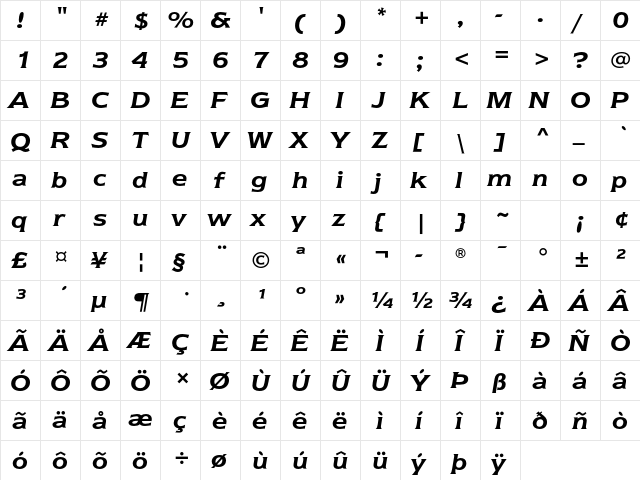
Newtext ITC Std Demi Italic
Demi Italic ·  Ray Baker ·
Design Context for Newtext ITC Std Typeface
Newtext ITC Std takes a measured approach to typography — its balanced proportions and neutral character make it a reliable workhorse for both digital and print work. The dynamic lean of this cut emphasises speed and emphasis in any layout.
Pro Tip: Use Newtext ITC Std for emphasis, pull quotes, and subheadings where its slanted energy can add rhythm to the layout.